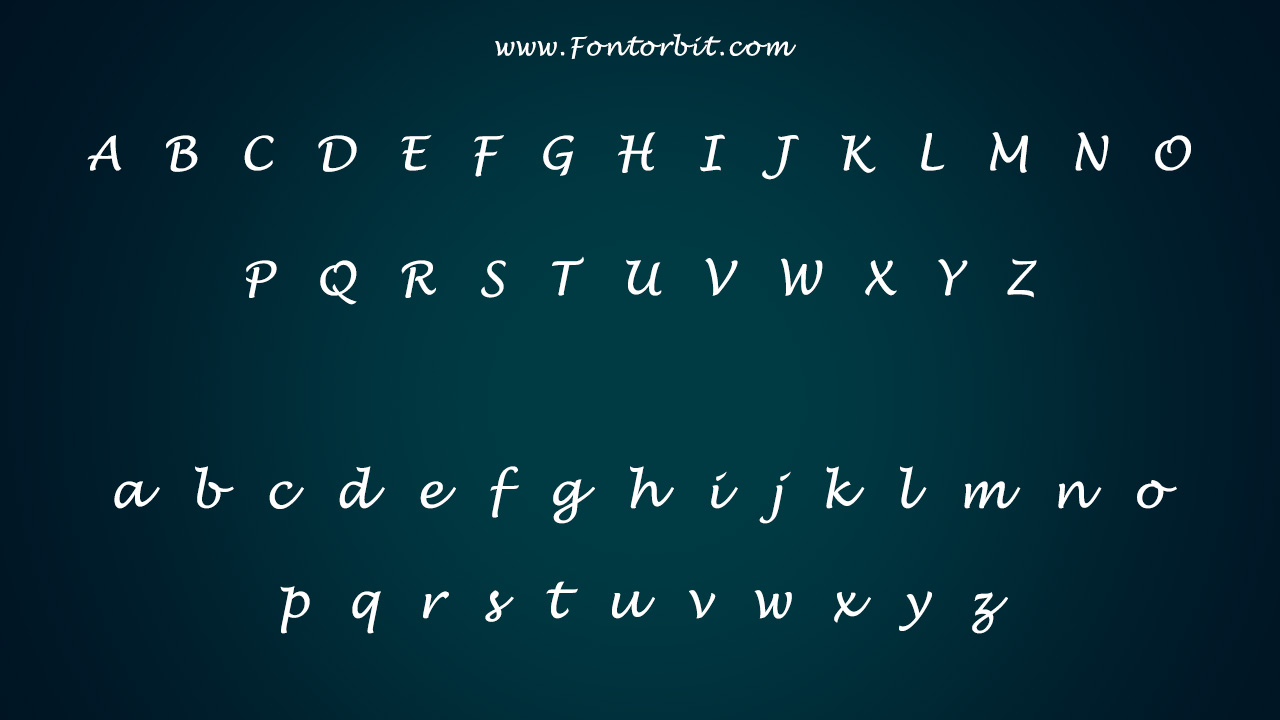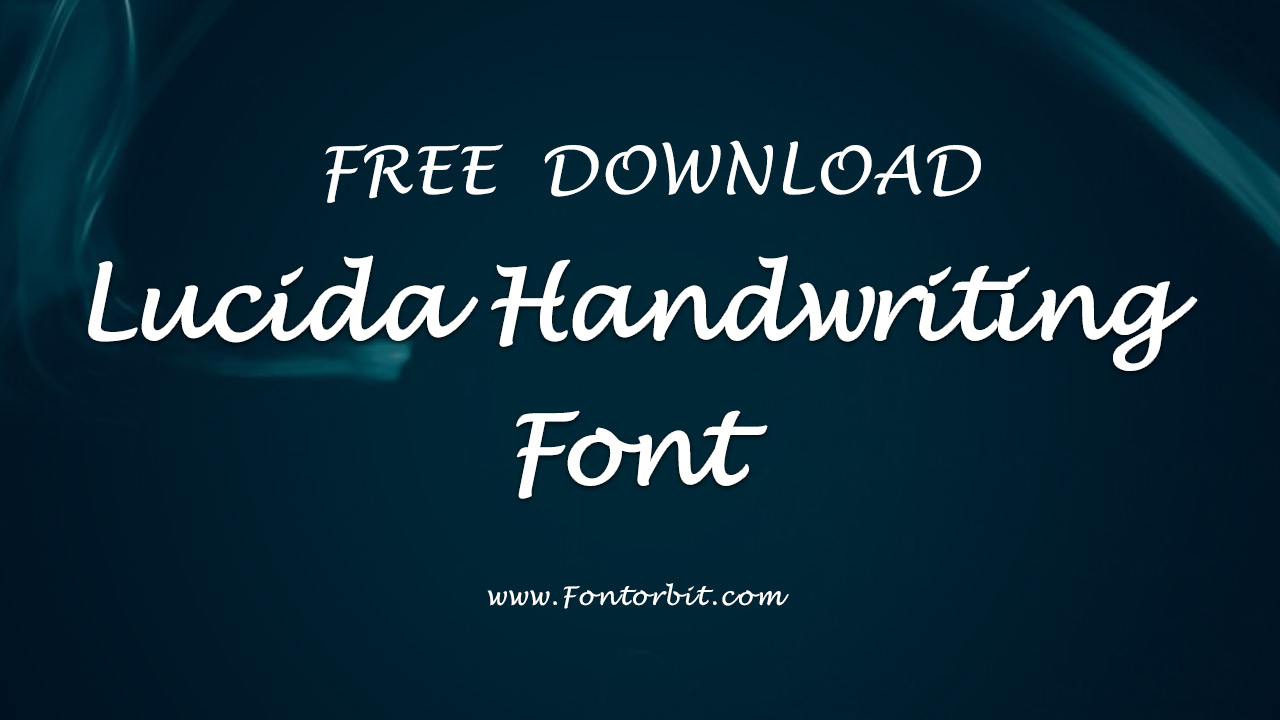
Lucida Handwriting is a beautiful script font designed by Charles Bigelow and Kris Holmes. Released by Monotype in 1992, it is part of the broader Lucida family, known for its elegant yet readable styles that combine traditional calligraphy with modern clarity. This font provides a charming, handwritten feel that suits various design needs.
Lucida Handwriting Font Family Includes
The Lucida Handwriting font family offers a light yet sophisticated handwritten style, ideal for projects that need a personal touch. It belongs to the Lucida family, which includes:
- Lucida Handwriting Std Thin
- Lucida Handwriting Std Light
- Lucida Handwriting Std Regular
- Lucida Handwriting Std Bold
- Lucida Handwriting Std Black
Notable Uses Of Lucida Handwriting
Lucida Handwriting is often used on occasions where a personal, elegant touch is required. Some notable uses include:
- Wedding invitations
- Greeting cards
- Certificates
- Personal letters
- Decorative headlines
This font is best suited for formal invitations, announcements, and other personal communications. Its elegant style also makes it a great choice for logos, branding, and even book covers where a more humanistic and friendly vibe is desired. However, due to its calligraphic nature, it should be used in moderation and not in long paragraphs, as it may reduce readability.
Lucida Handwriting is an excellent choice for designers seeking a personal, script-like font with a refined, elegant feel. Its versatility allows it to be used in both formal and creative settings, making it a timeless addition to any designer’s toolkit. Its smooth curves and distinct characters add personality and charm to any text, ensuring that it stands out.
1.When Was Lucida Handwriting Released?
The font was released in 1992.
3.What Is The Main Style Of Lucida’s Handwriting?
It is a script font with a calligraphic, handwritten style.
4.What Are The Best Uses For Lucida Handwriting?
It’s best for invitations, greeting cards, and decorative headings.
5.Is Lucida Handwriting Part Of A Larger Family?
Yes, it belongs to the Lucida family which includes other styles like Lucida Calligraphy.
6.Can Lucida Handwriting Be Used For Body Text?
It’s best suited for titles or short text, as it can be difficult to read in long paragraphs.